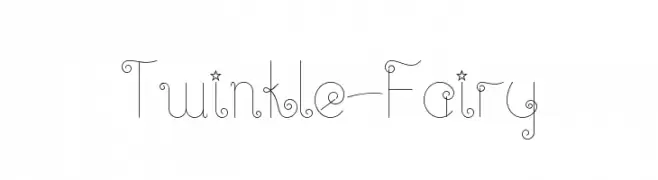
A whimsical and elegant font with tall, narrow characters and a hand-drawn quality.
( Fonts by Letterayu - Sri Rahayu - Personal-use only. For commercial use please contact owner. )
A playful, hand-drawn font with rounded edges and a friendly vibe.
( Fonts by Perspectype Studio - Letterena.com - Personal-use only. For commercial use please contact owner. )
A playful, handwritten font with a whimsical and childlike charm.
( Fonts by Annisa Afni )
A playful, hand-drawn font with rounded edges and a casual, whimsical style.
( Fonts by Mr.Soon Design )
A playful, bold font with a rounded, hand-drawn style.
( Fonts by Pinisiart )
A bold, playful font with a quirky, hand-drawn style.
( Fonts by www.houseoflime.com )
A decorative font with characters intertwined with sunflower motifs.
( Fonts by Manfred Klein - manfred-klein.ina-mar.com )
A decorative font with intricate floral designs entwined around each letter.
( Fonts by Cumberland Fontworks - http://www222.pair.com/sjohn/fonts.htm - S. John Ross )
A decorative knotwork font with bold, intertwining lines and geometric shapes.